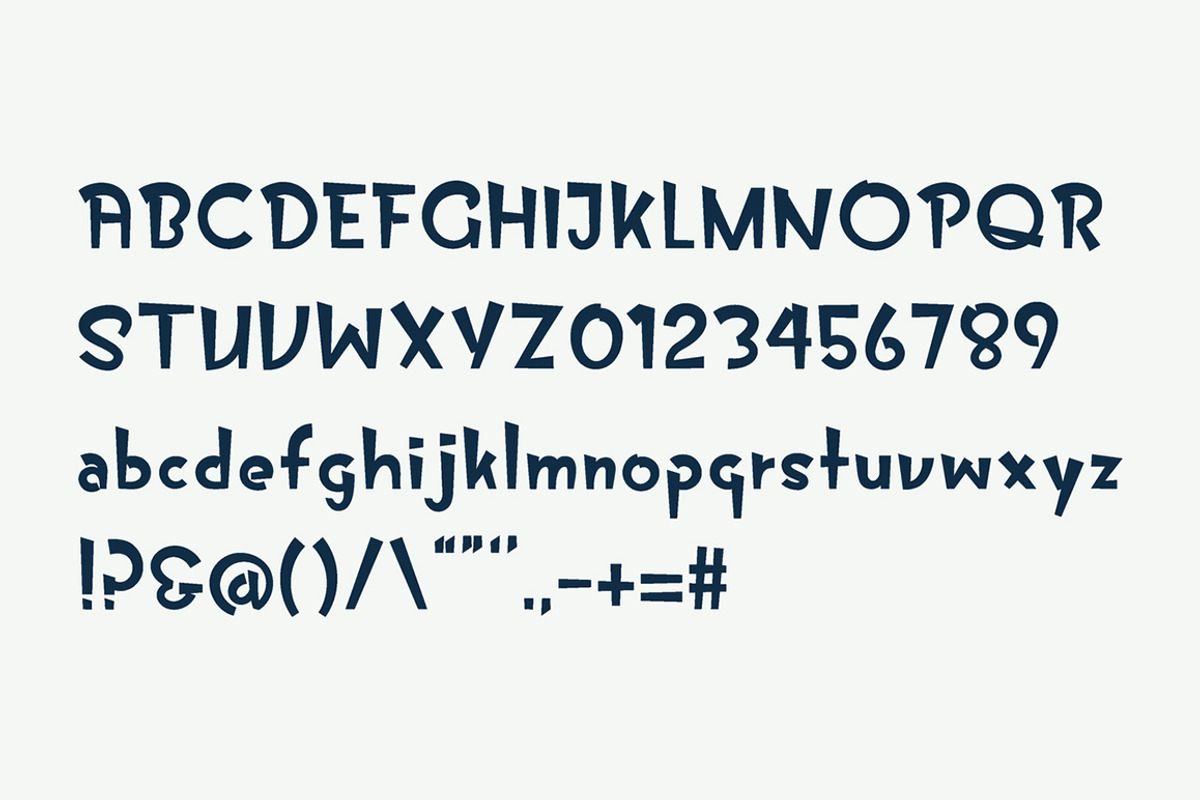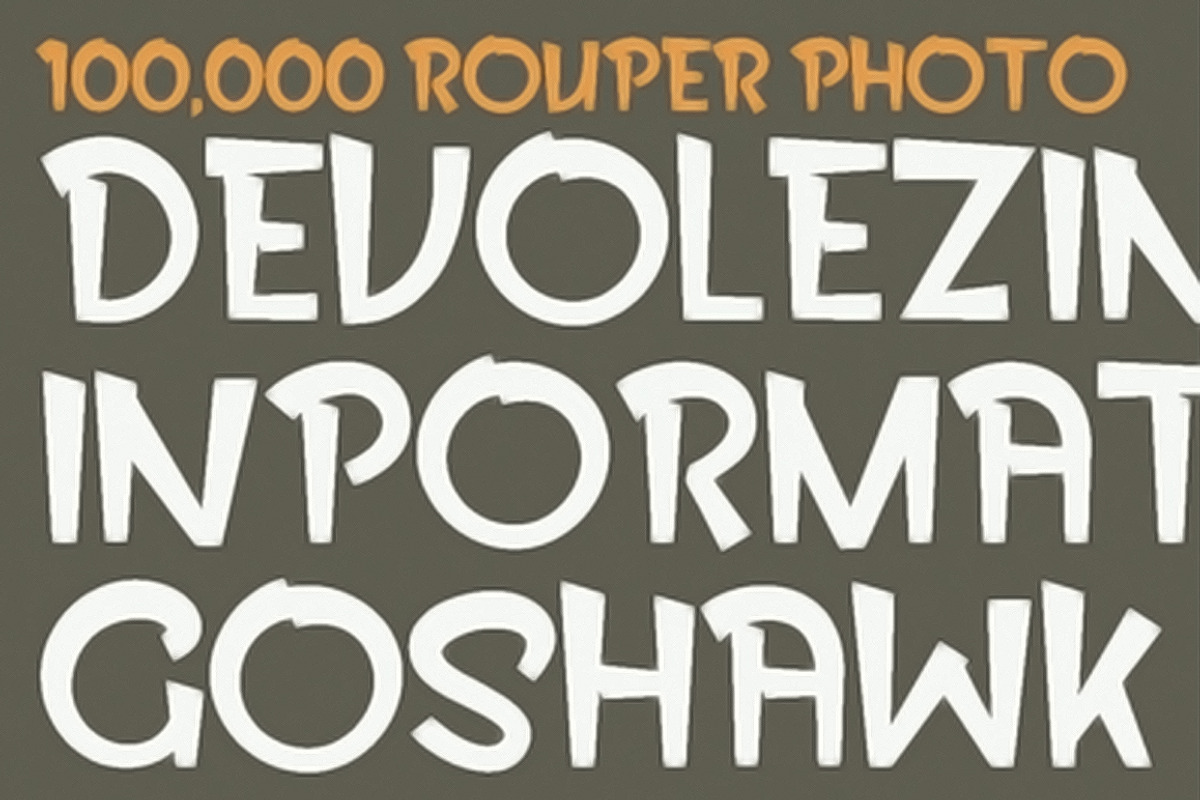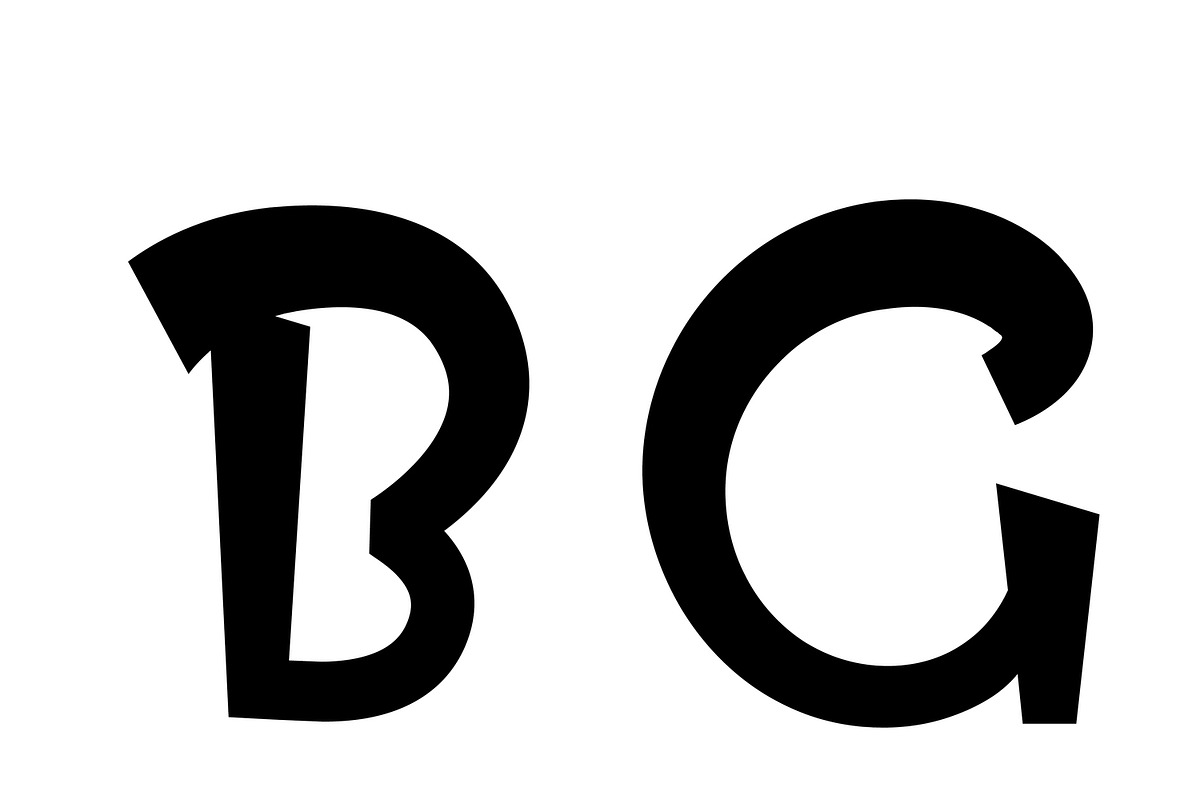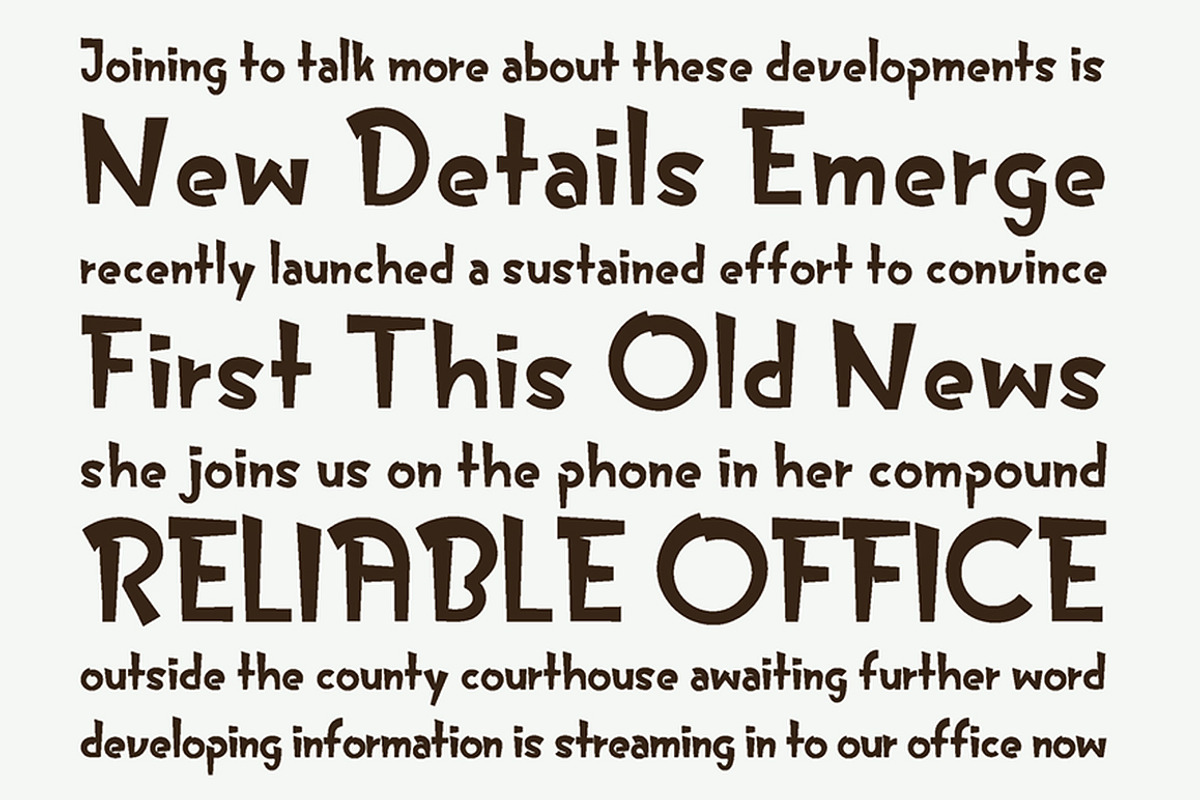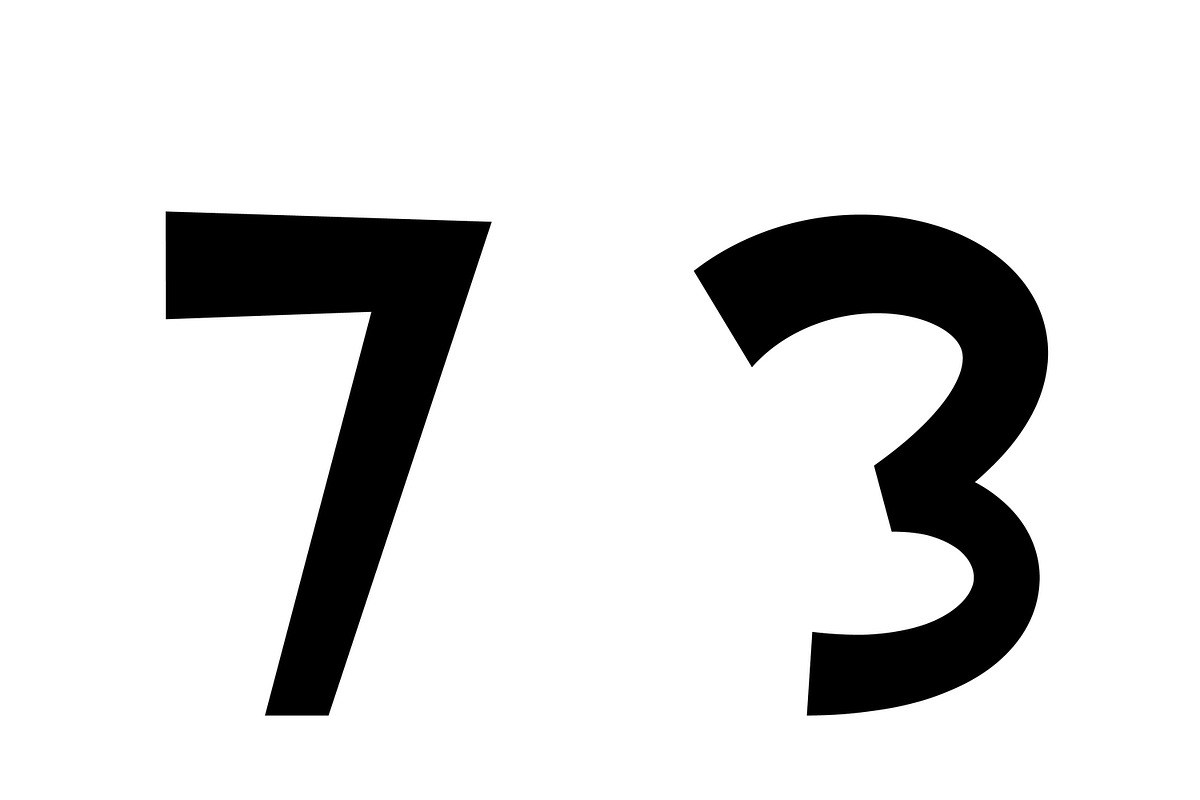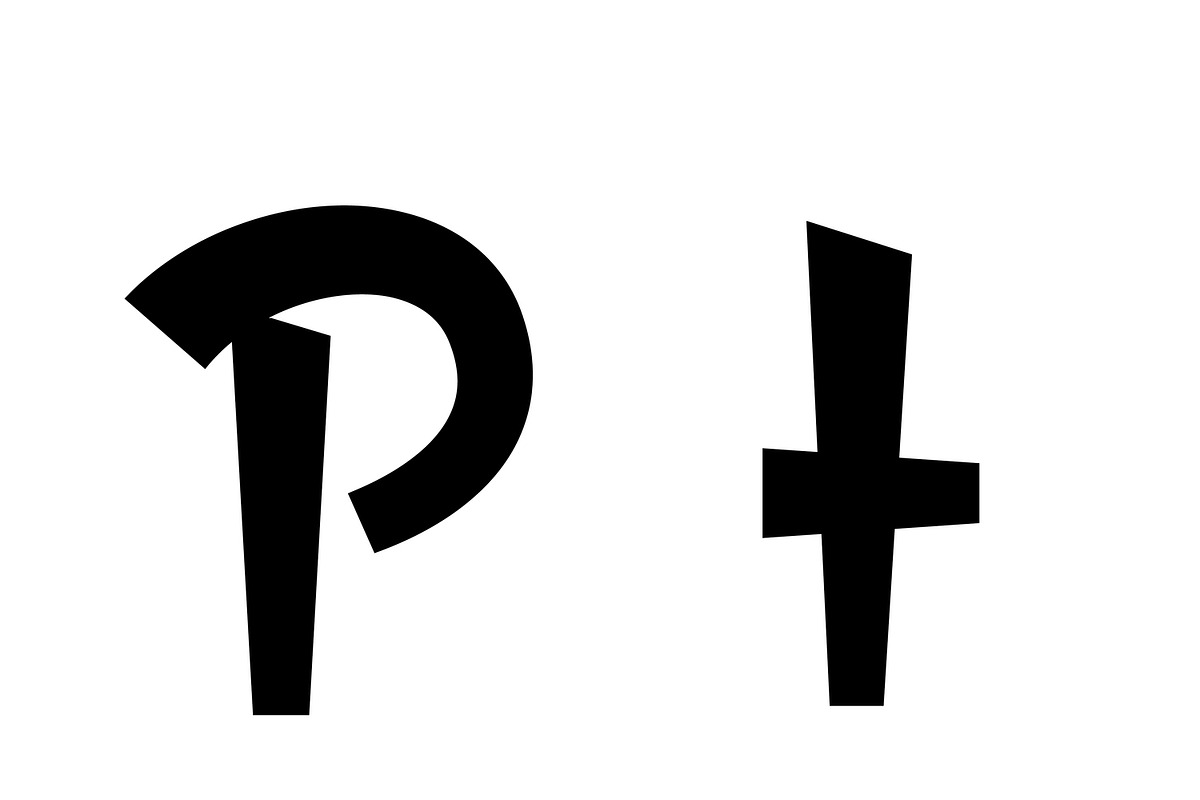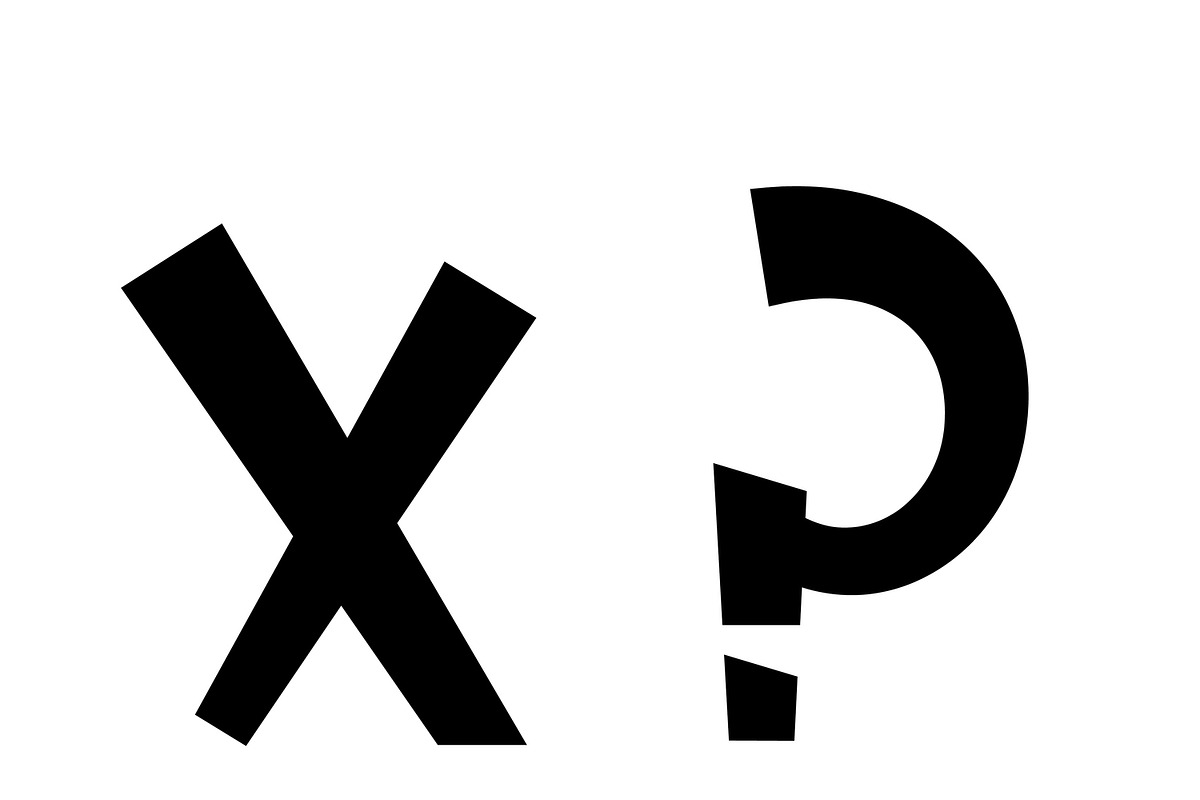
Lemon Days Typeface
Lemon Days Typeface by roscoepeacock is a font selected for branding, posters, packaging, typography.
Why Lemon Days Typeface is worth a look
Lemon Days Typeface by roscoepeacock fits naturally into Branding, posters, packaging, typography.